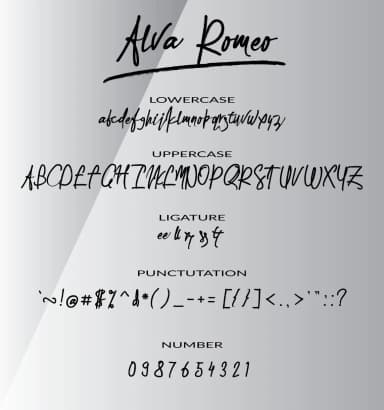
Alva Romeo by beeart009 is a handwritten script that infuses designs with authentic character and emotional depth. Unlike rigid commercial typefaces, this font captures the natural flow and personality of genuine hand lettering, making it an ideal choice for projects where human touch matters and authenticity stands out.
This typeface shines in creating romantic wedding invitation suites with timeless charm, designing personalized greeting cards that feel genuinely handcrafted, and developing bespoke event signage and menu cards that command immediate attention. Small business owners and boutique brands use Alva Romeo for artisan product labels, custom packaging design, and branded gift materials that tell a story. The script's flowing letterforms work seamlessly across both digital and print applications, moving gracefully from formal occasions to casual creative projects without losing their natural character.
The handwritten aesthetic adds soul and dimension to work that demands personality and warmth. Whether you're building a cohesive stationery system, crafting custom menu cards for special events, designing cosmetics or wellness packaging, or establishing a distinctive brand identity, Alva Romeo delivers authenticity that feels personally created rather than digitally generic. Its organic quality resonates particularly well in fashion, lifestyle, handmade, and creative industries where personality and intentionality matter most. Get Alva Romeo on Creative Fabrica to bring genuine handwritten warmth to your next creative project.
Alva Romeo Font is a script font that shines as a display or heading face. Pair it with a clean sans-serif or serif font for body text β the contrast creates a clear hierarchy while the two styles stay balanced and easy to read.
Alva Romeo Font